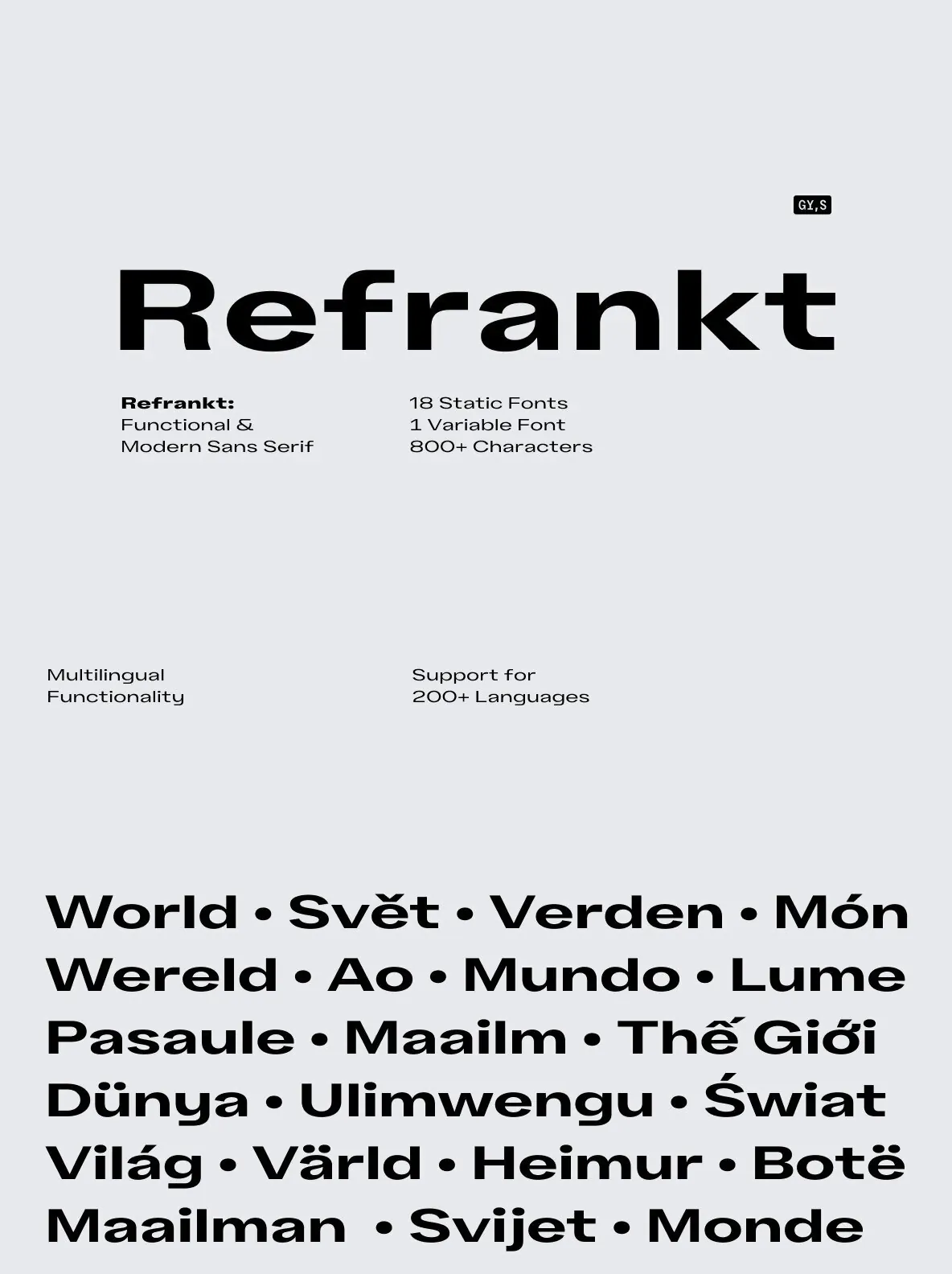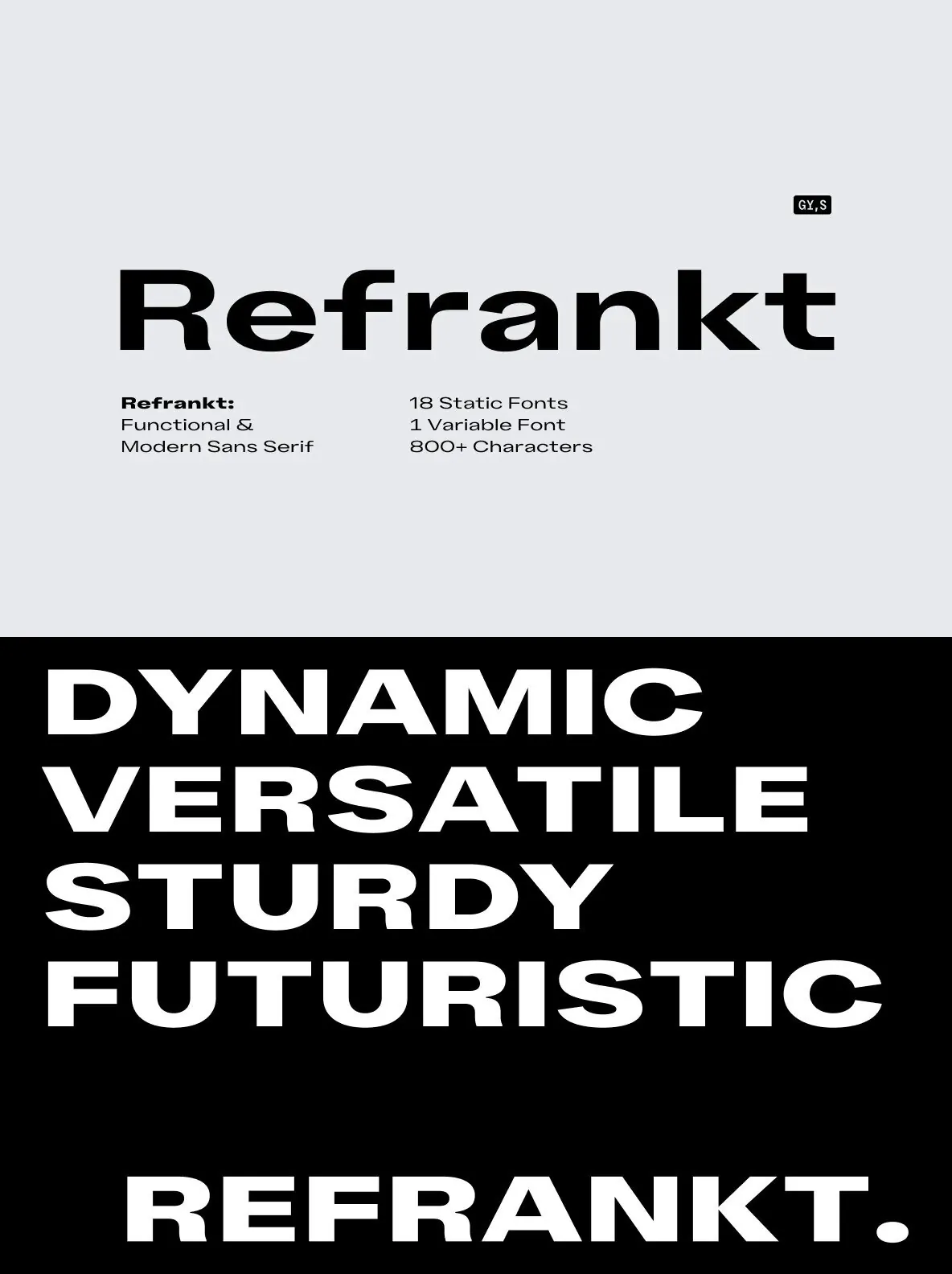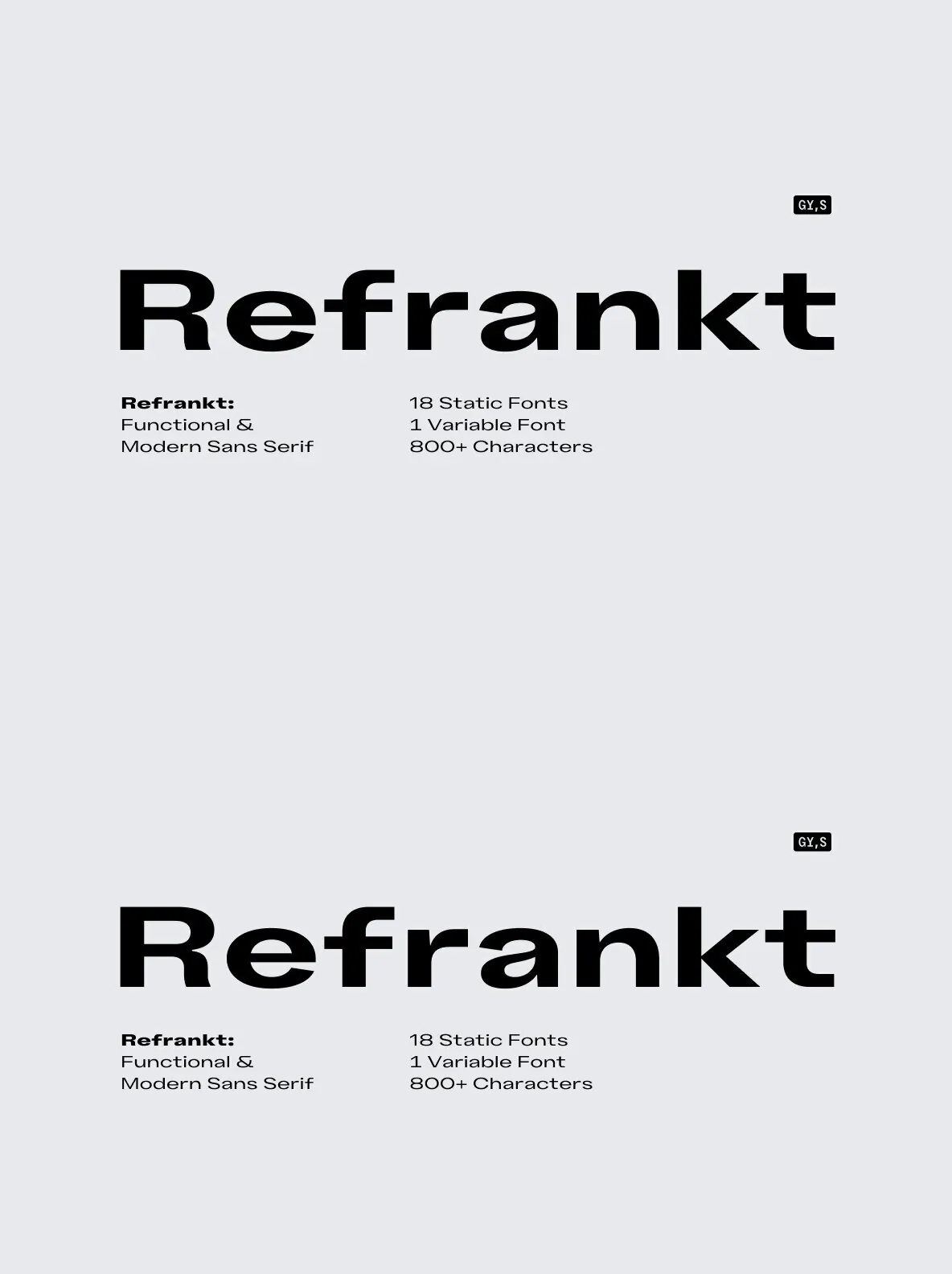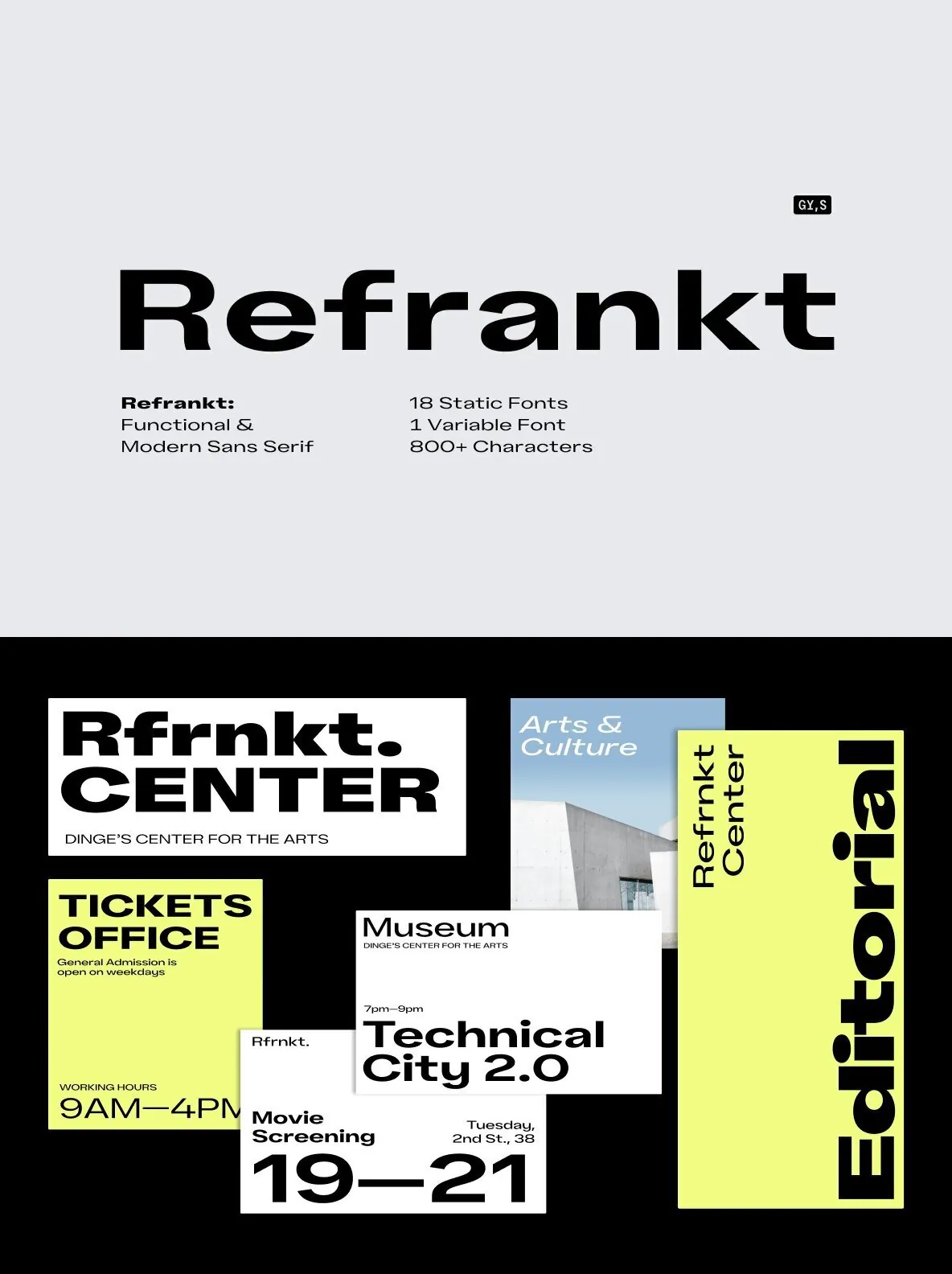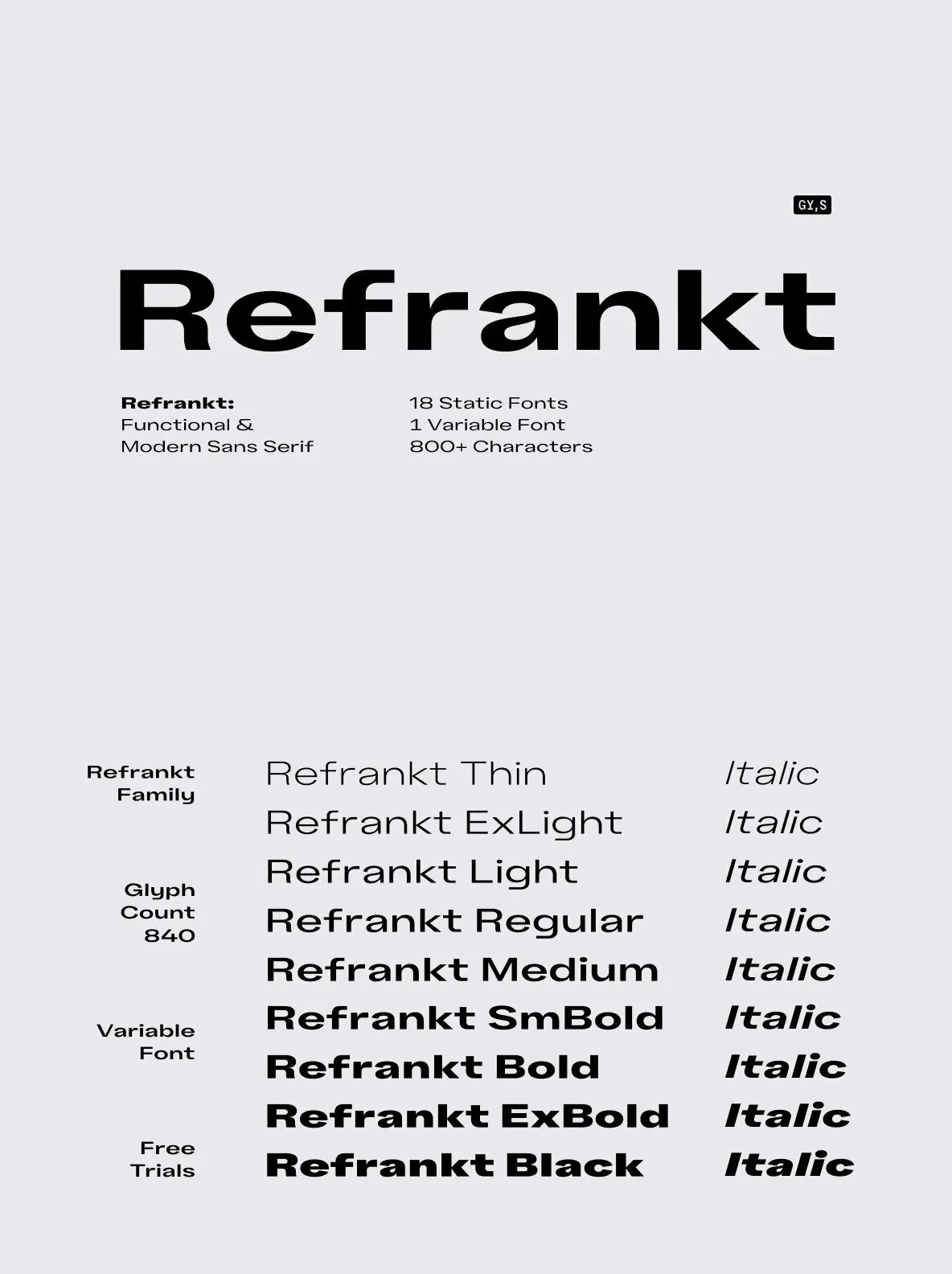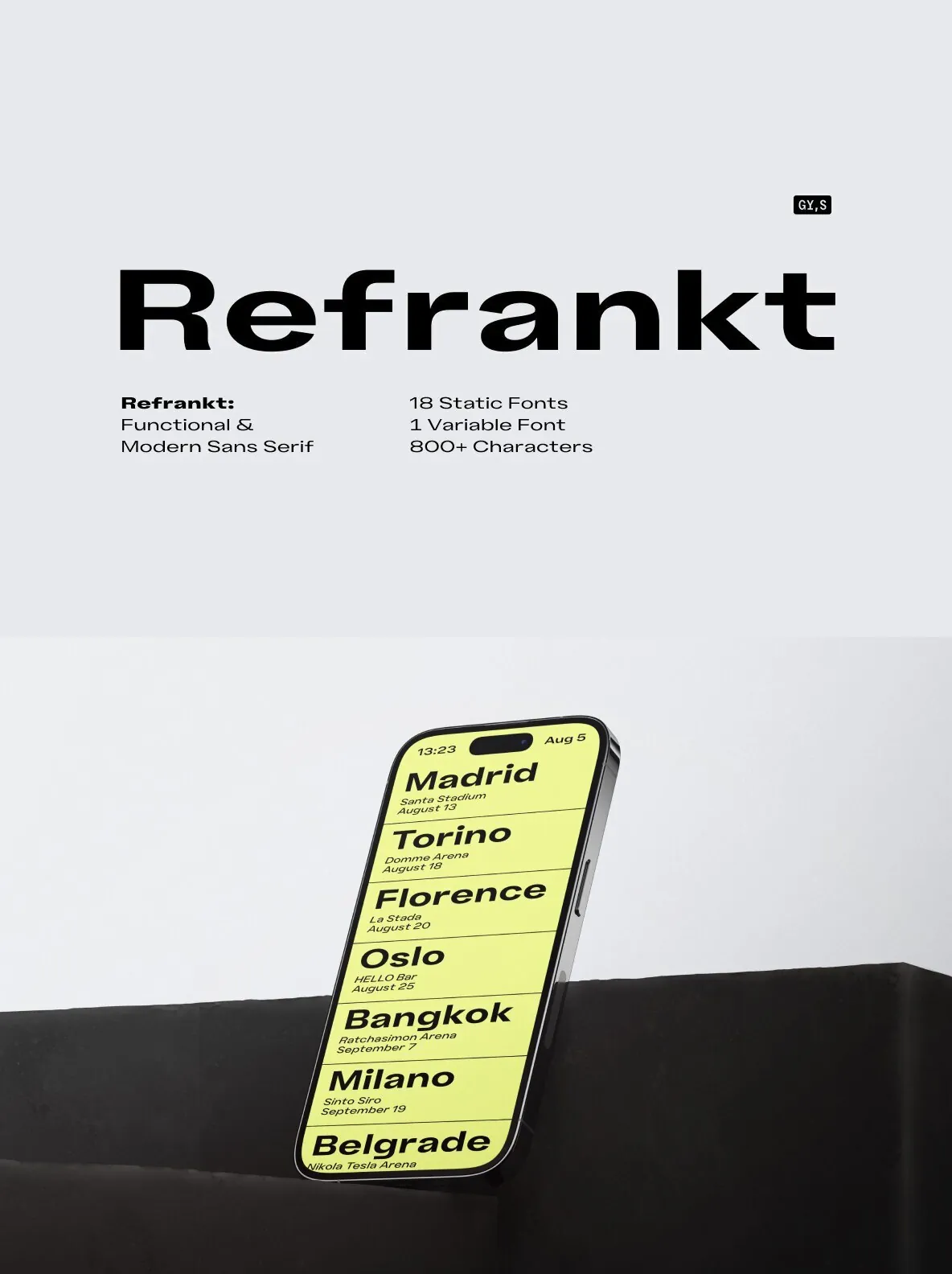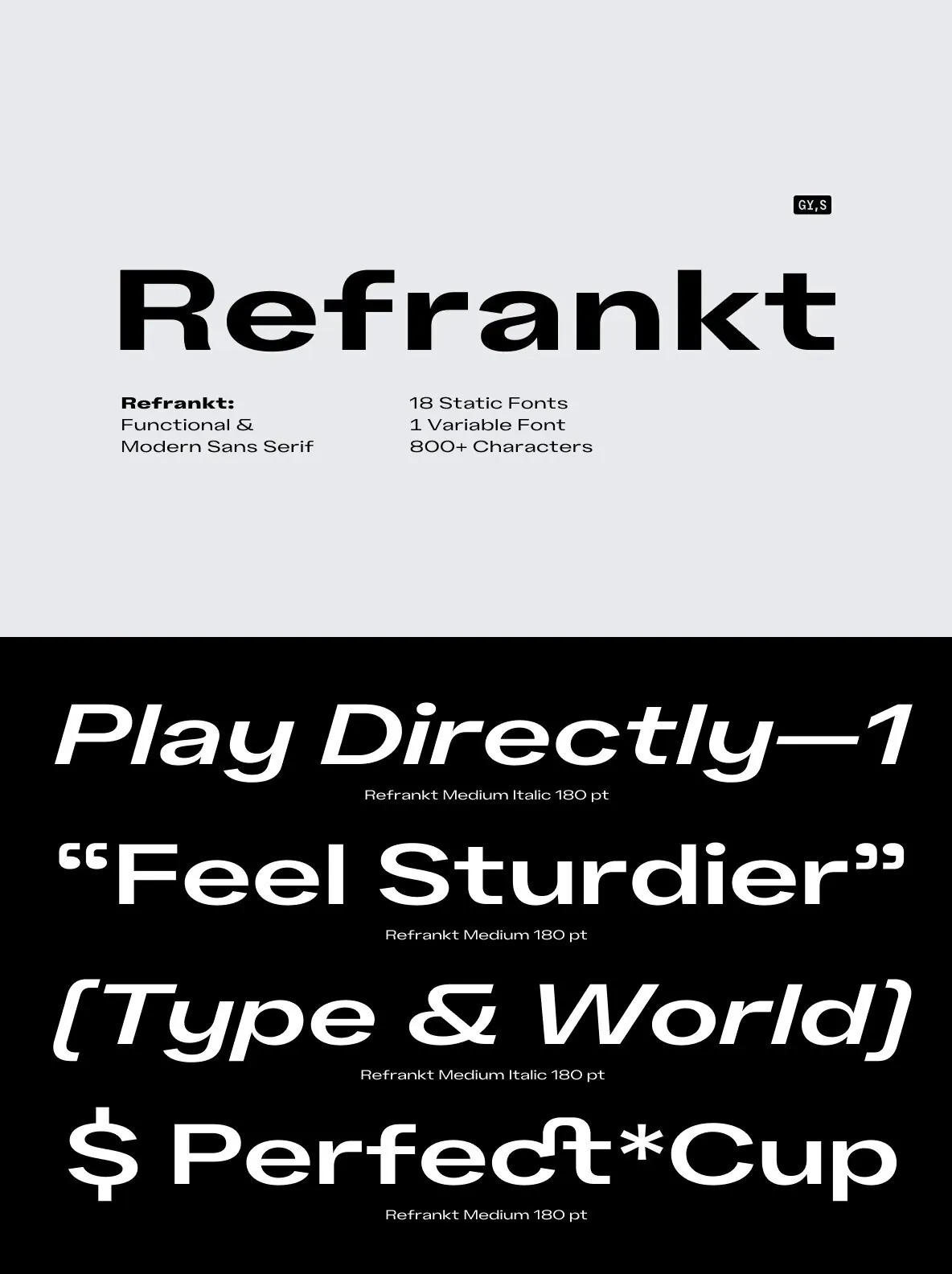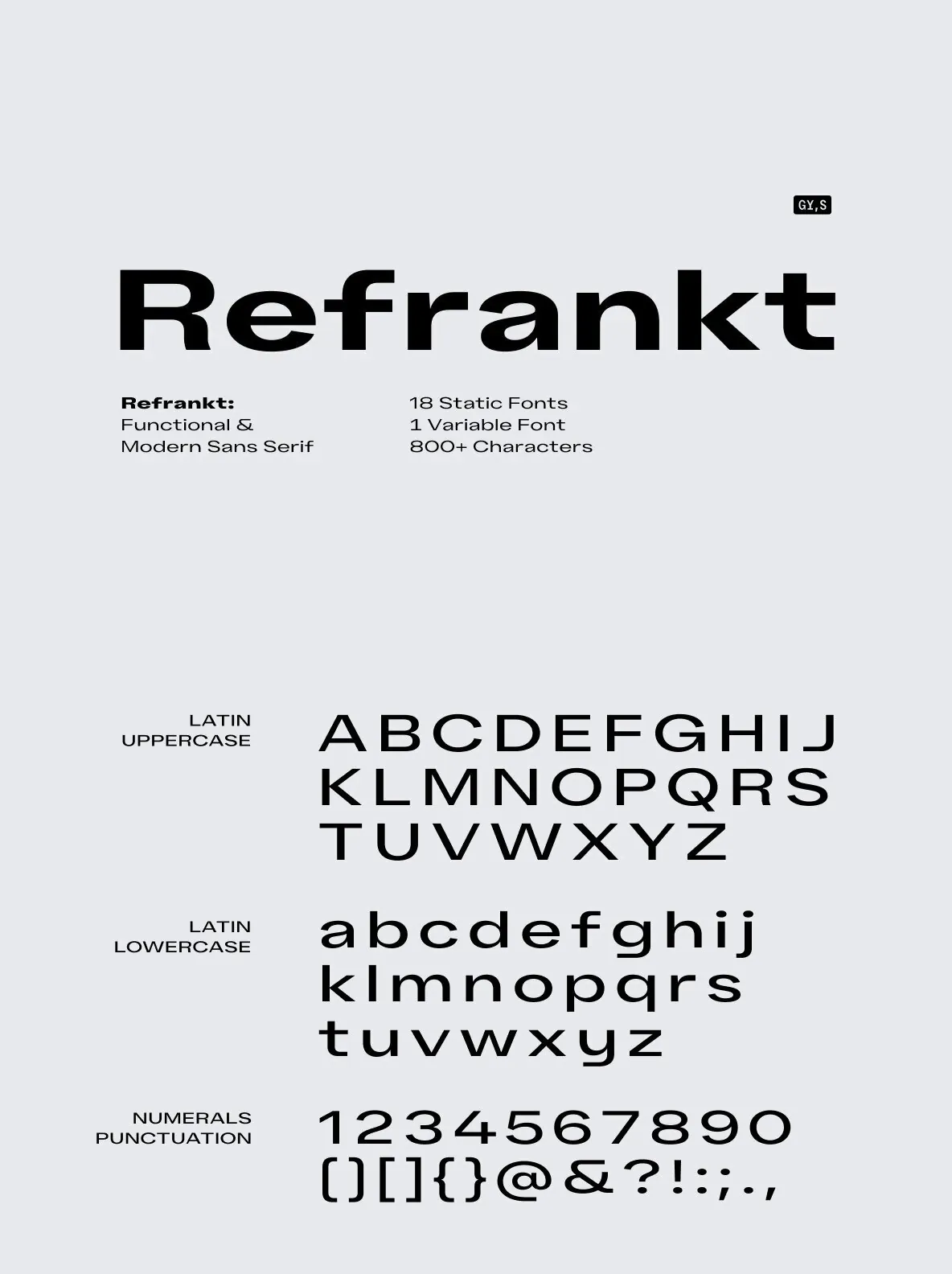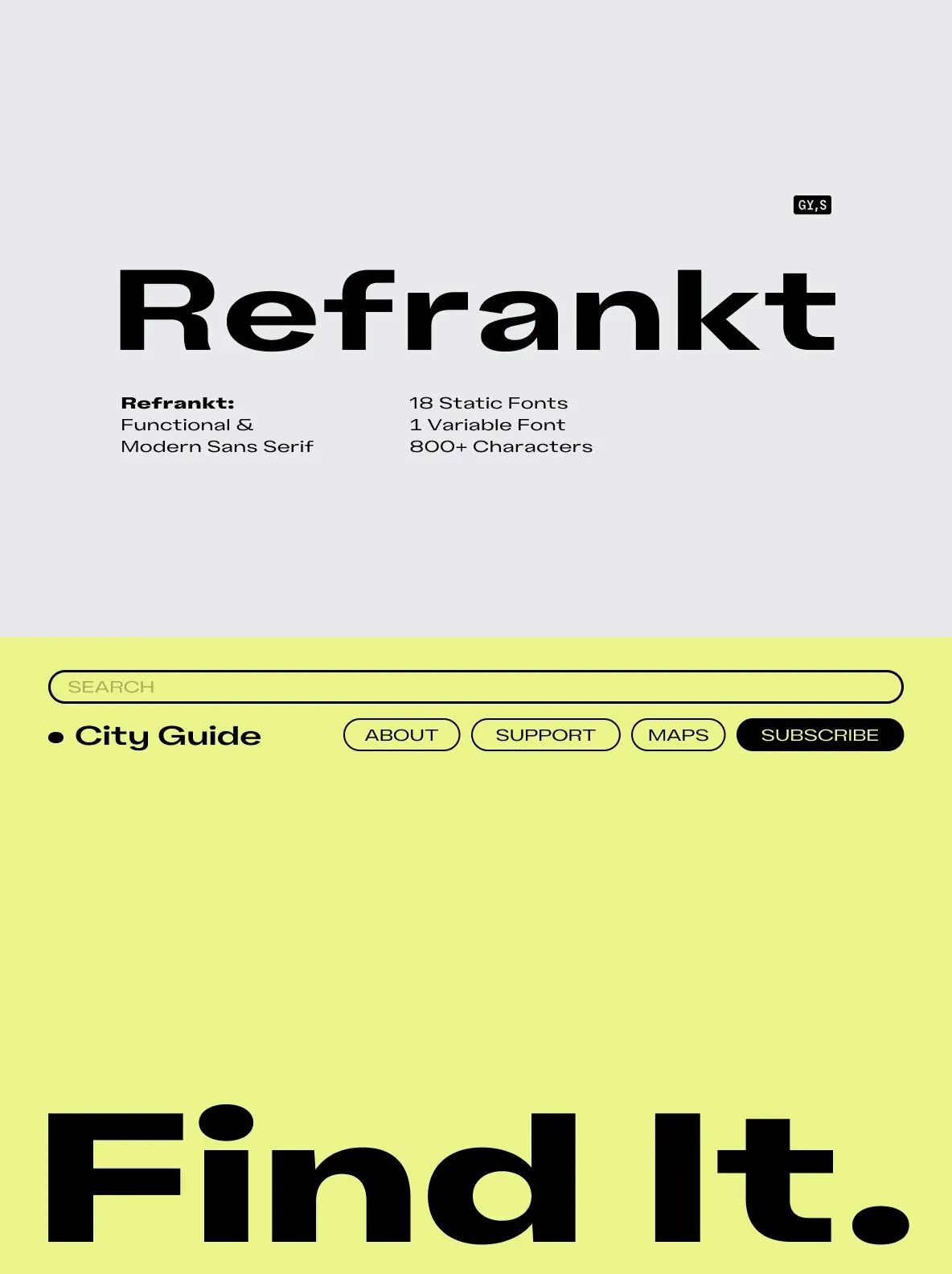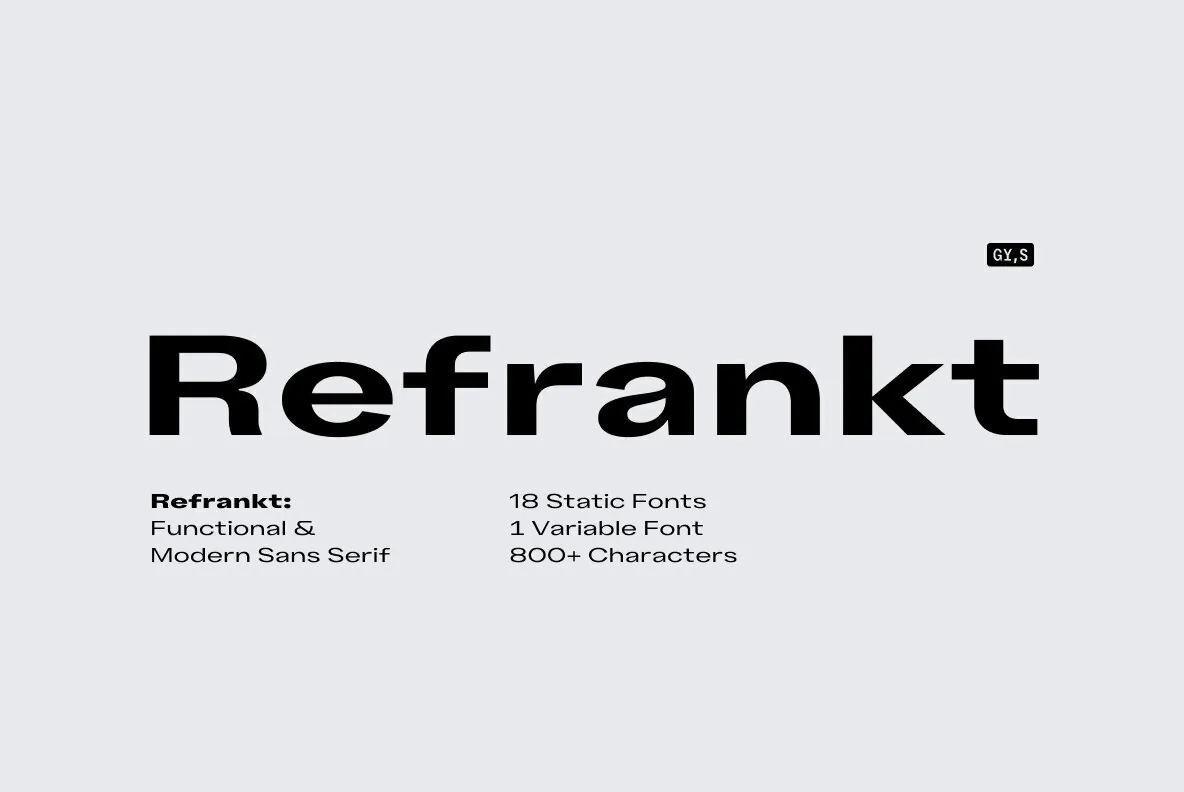
Refrankt — Wide Grotesque, Ready for Systems
Refrankt is a multifunctional sans serif type family in 18 styles, ranging from Thin to Black with matching italic, as well as a variable font. Its defining visual trait is extra-wide letters and expanded proportions. This gives the family a clear, confident presence and broadens how you can use it. Refrankt reads strongly as a display font, yet it stays comfortable in headings and larger bodies of text.
Built on a clean, thoughtful take on the functional grotesque sans-serif style, Refrankt fits a wide variety of work, from UI/UX design to packaging and branding. It also suits logos and word marks. If you need bold, sturdy letterforms, a futuristic feel, or dynamic flexibility, Refrankt adapts quickly. It feels especially at home in projects tied to technology, athletics, industrial design, and more.
Refrankt’s functionality comes from multilingual support (200+ languages) and extensive OpenType features, including Case-Sensitive Punctuation and Stylistic Alternates, among many others. Alongside a standard set of figures, it includes tabular figures, old-style figures, superiors, inferiors, and fractions. The full character set totals over 800 glyphs.
Features
18 Fonts (9 Upright & 9 Italic)
Variable Font
800+ characters/font
200+ languages supported
Extensive OpenType Features
Versatile and Multifunctional